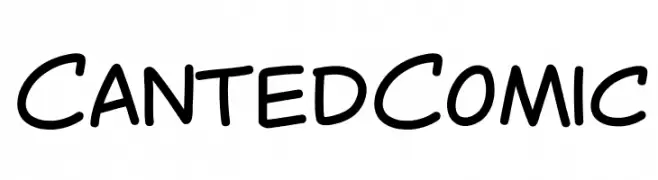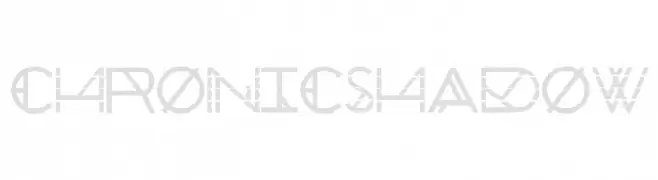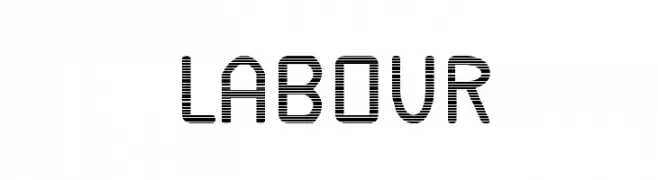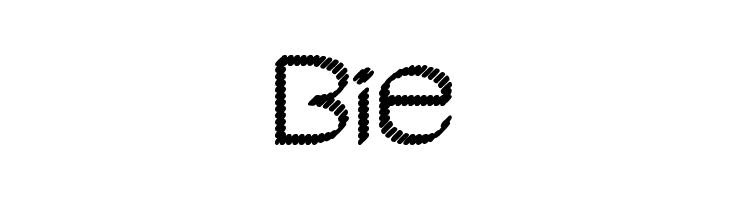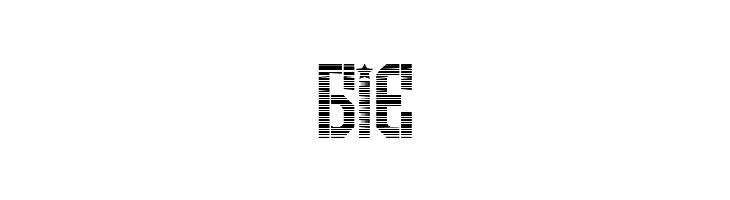
( Jecko Development - www.jeckodevelopment.com/ )
A bold, decorative font with a striped pattern, perfect for creative projects.
( Lianne Elliott )
A modern, striped font with a bold, geometric design.
( Nerdle Pants )
A whimsical, hand-drawn font with a playful and cartoonish style.
( Nils Cordes - nilscordes.com )
A playful, comic-style handwritten font with smooth, rounded strokes.
( Noem9 Studio - www.noem9studio.com )
A modern, shadowed font with a striped, three-dimensional appearance.
( Robothaus - Patrick McGrath - robothaus.com )
A playful, hand-drawn font with a rough sketch style.
( Southype - Rodrigo Gonzalez - www.southype.com )
A modern, decorative font with diagonal stripe patterns in each character.
( Vladimir Nikolic - www.coroflot.com/vladimirnikolic )
A modern, striped font with a dynamic, futuristic design.
( Vladimir Nikolic - www.coroflot.com/vladimirnikolic )
A bold, 3D decorative font with a striped pattern and strong visual impact.
( Vladimir Nikolic - www.coroflot.com/vladimirnikolic )
A decorative, vintage-style font with bold, striped patterns.